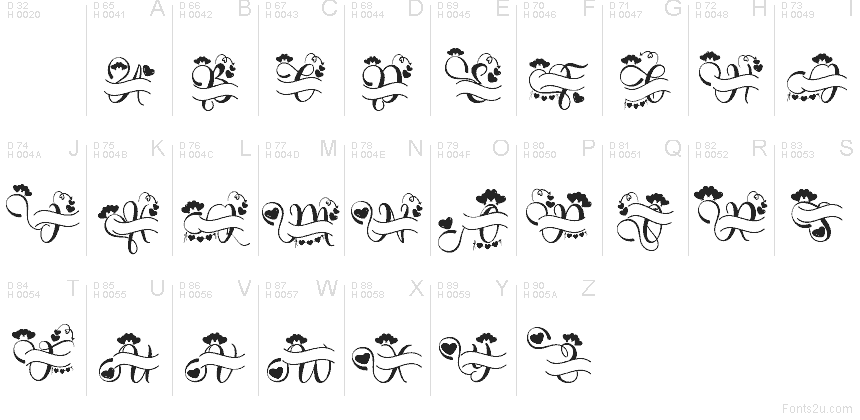
Dainty Valentine Monogram
Dainty Valentine Monogram font by Yoga Letter is a free decorative Valentine holiday typeface that turns initials into tiny love notes. Tall, looping letters are wrapped with hearts, curls, and dotted flourishes, creating an ornate, hand-drawn feel that looks like it was inked on lace-edged stationery. Each glyph feels like a keepsake—romantic, airy, and just a little bit playful.
Using Dainty Valentine Monogram, you can craft standout wedding monograms, Valentine cards, love letters, gift tags, boutique logos, and foil-stamped stationery. This free font shines when set large, letting the swashes and heart motifs breathe, while a clean sans serif for body text keeps everything readable and modern.